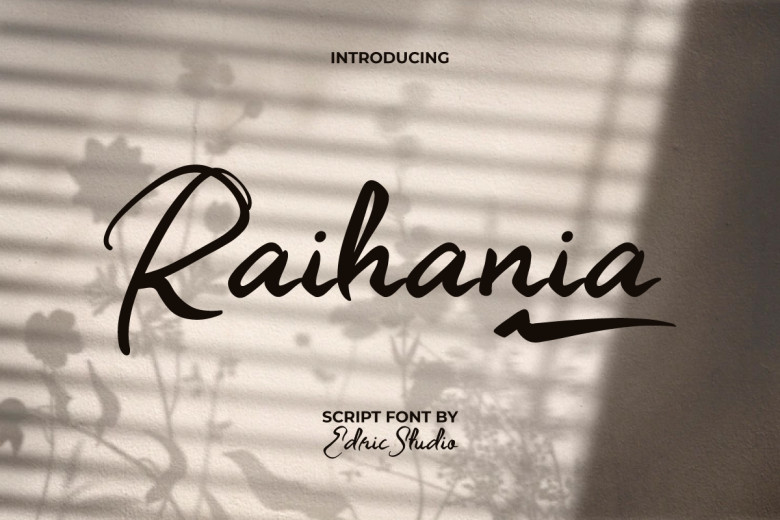
Raihania Font
Raihania Font is an elegant script font inspired by classic typography. Made with unbalanced brushes for an authentic handwritten appearance. Perfect for bakers, artists, coffee shops cosmetics and dessert cooks; event planners fashion designers hair salon florists, homeware photographers real estate printing publishers publishing real estate restaurant spa wedding and many other fields!
Raihania Font is an exquisite collection that includes Uppercase and Lowercase Basic characters, numbers, symbols, punctuation marks and Swooshes that is flawlessly managed through spaced-and-kerned characters that perfectly fits its name.
Raihania Brush Script Font